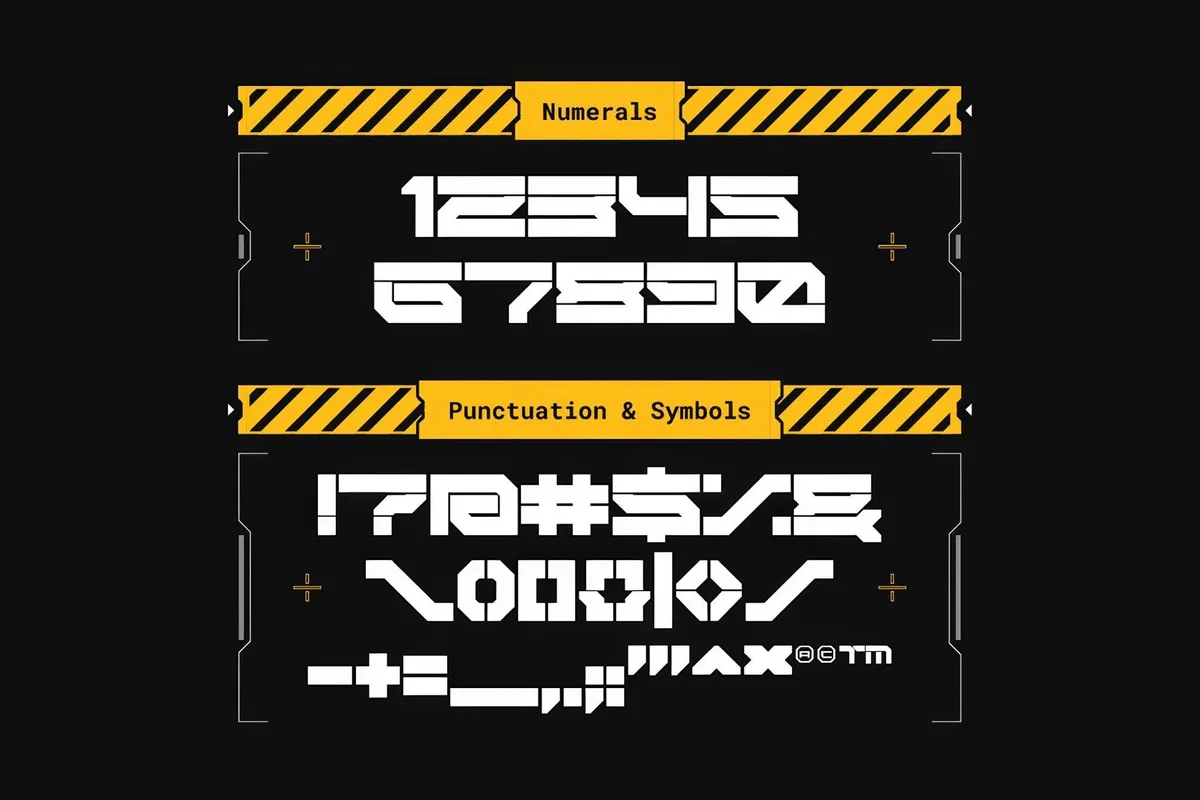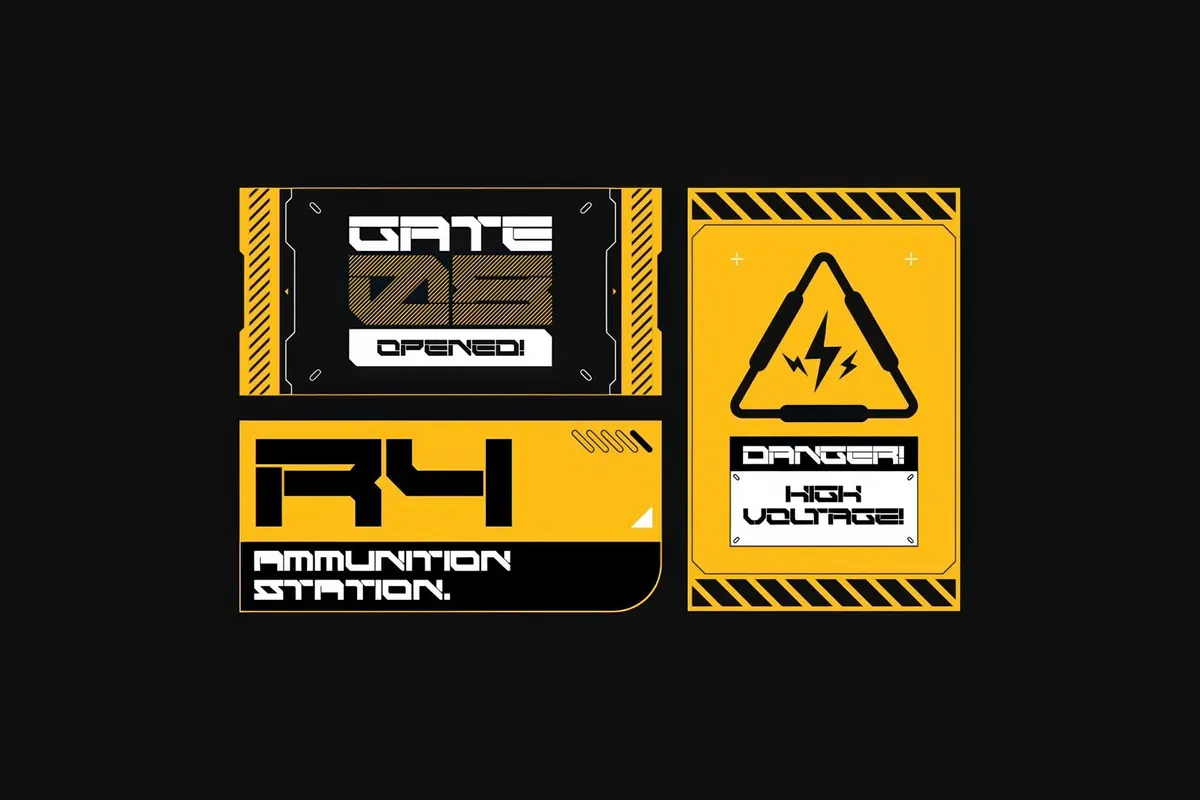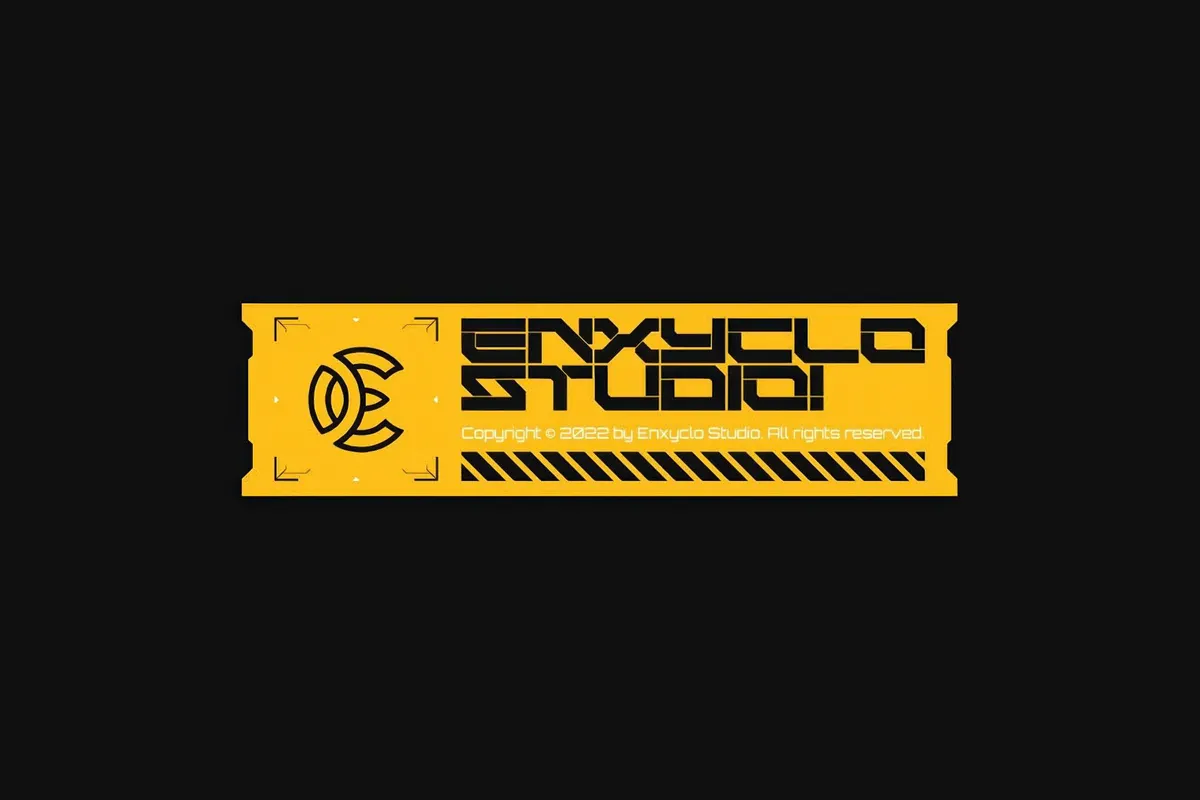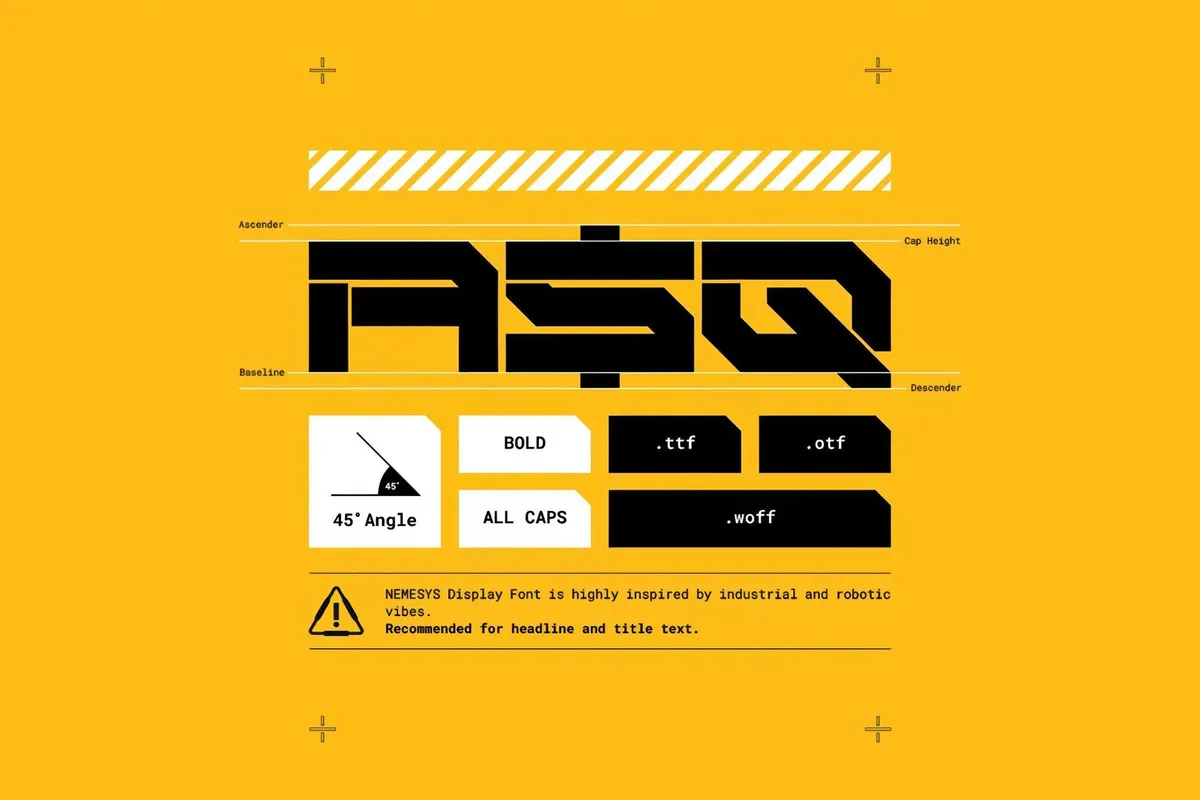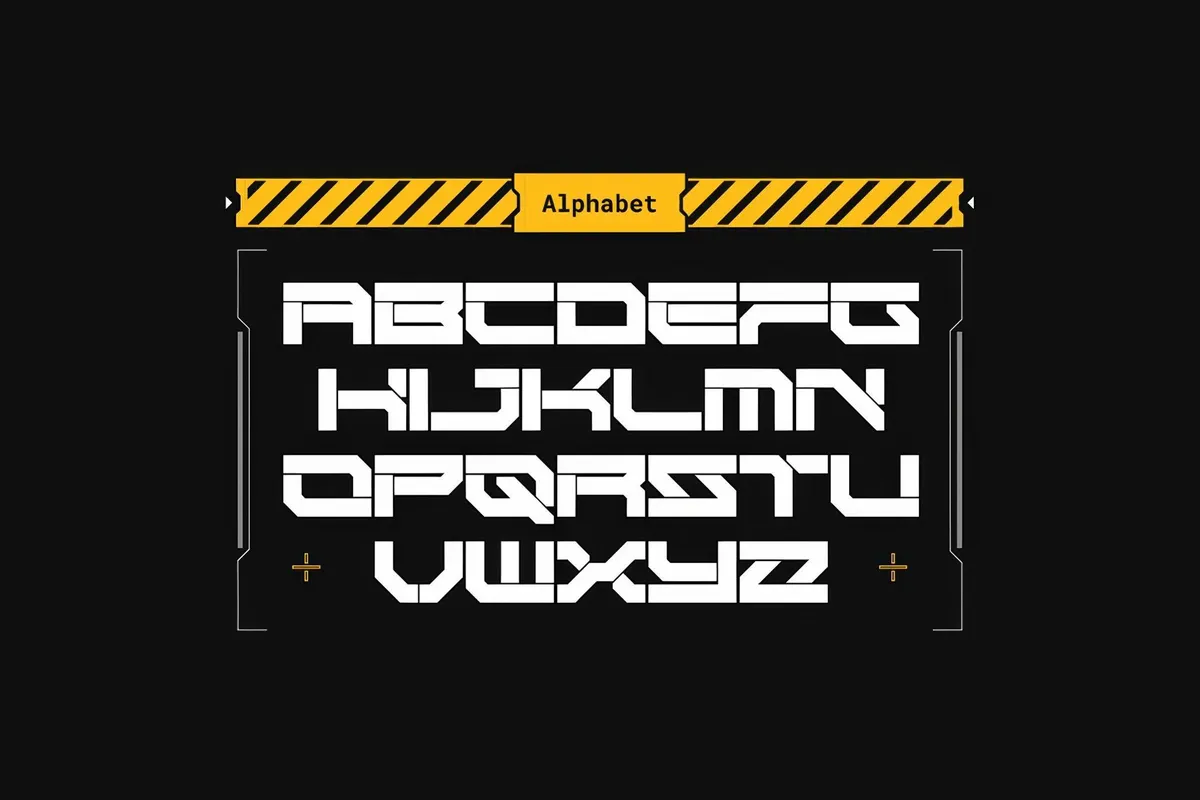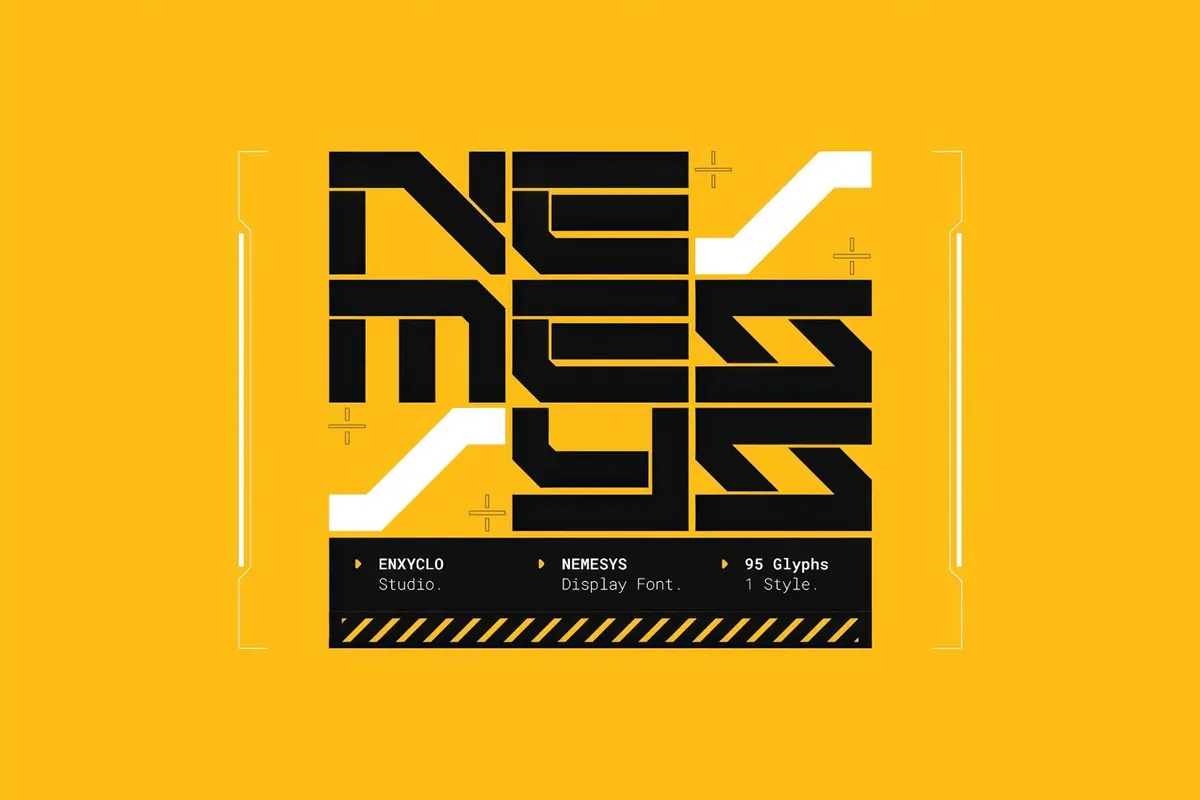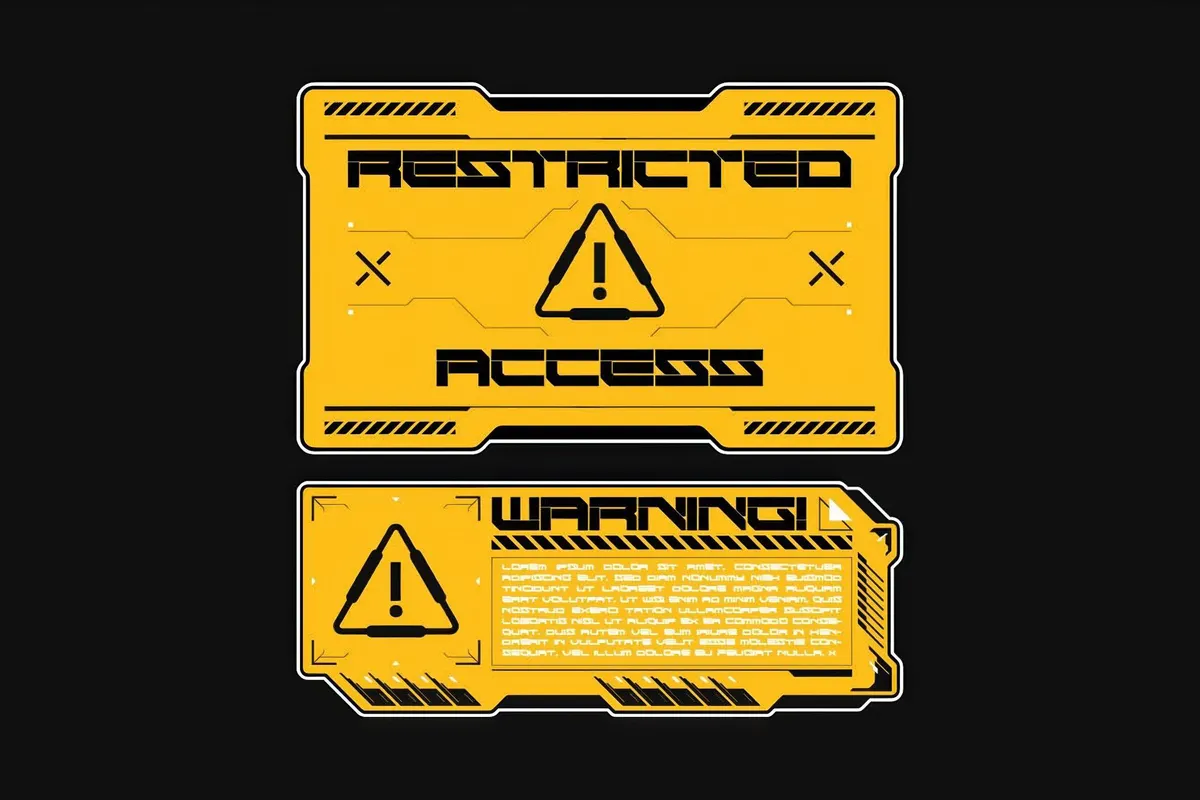
NEMESYS — Futuristic Cyberpunk Font
Cyberpunk is having its moment, and NEMESYS rides the wave with industrial grit and robotic elegance. As futuristic visuals dominate branding, gaming, and streetwear, this font captures the zeitgeist of tech-forward, dystopian aesthetics. With 95 glyphs, including uppercase letters, numerals, punctuation, and symbols, NEMESYS is perfect for headlines, logos, posters, and even wearable designs. While PUA encoding ensures seamless usage, making it as practical as it is striking.